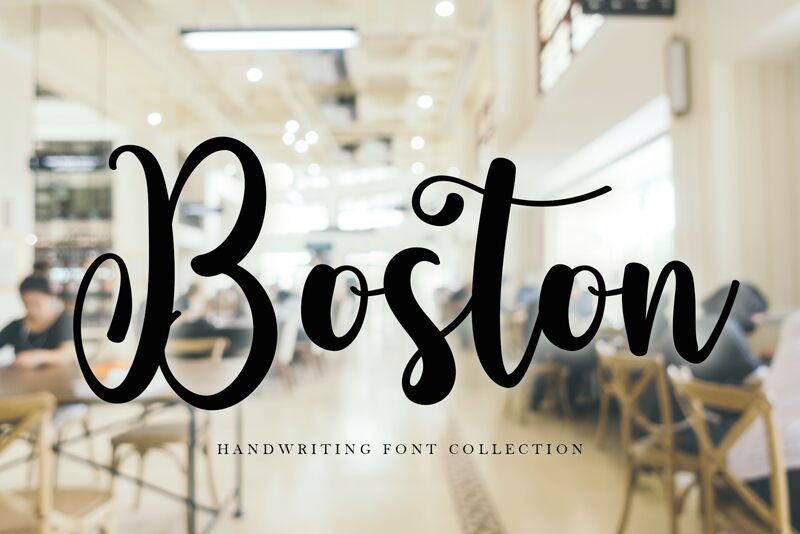
Boston
Boston, designed by Juneteenth, elegantly bridges the gap between classic calligraphy and modern flair. This handwritten font dances with a lively rhythm, its smooth lines suggesting a personal touch that adds warmth to any project. Its aesthetic charm lies in the way it conjures the nostalgia of traditional penmanship while maintaining a sleek and approachable look for today's audience.
Ideal for those seeking to imbue their work with personality, Boston thrives in settings that call for intimacy with an air of sophistication. It's well-suited for personalized letterheads, captivating titles, and bespoke stationery-anywhere you desire a human touch without sacrificing elegance and contemporary style.